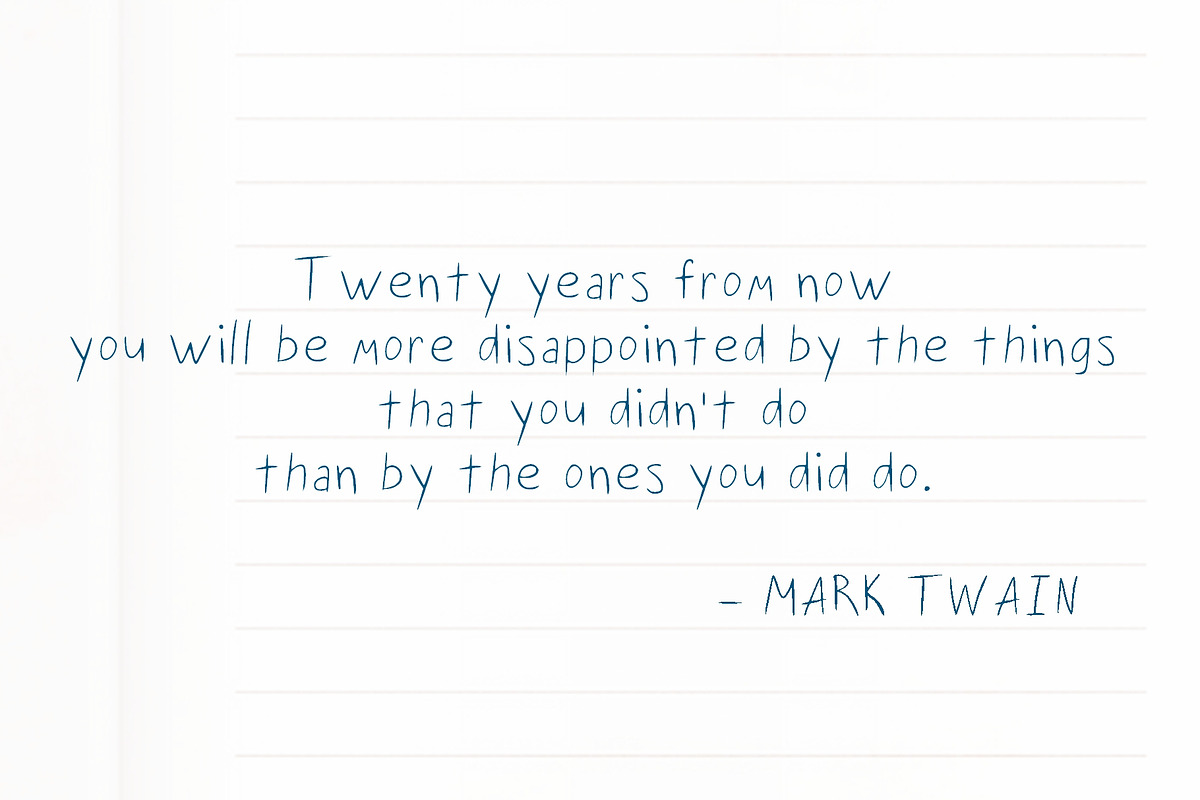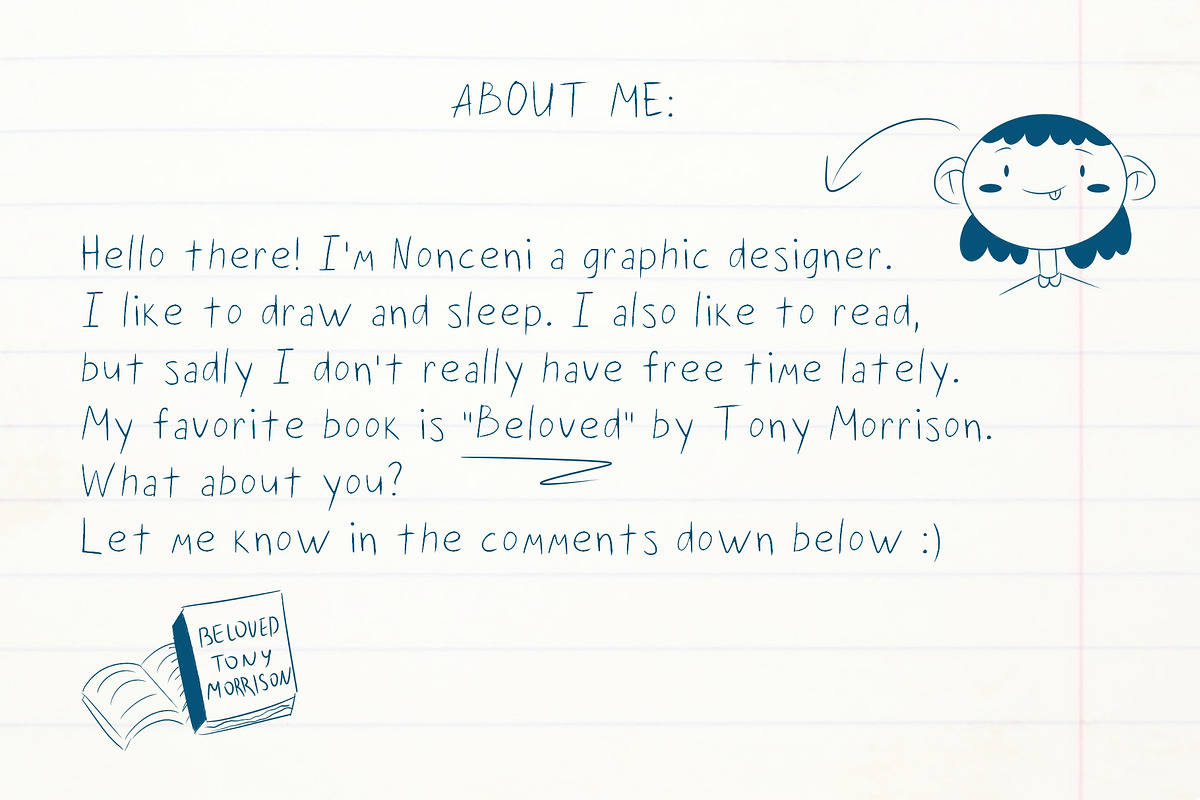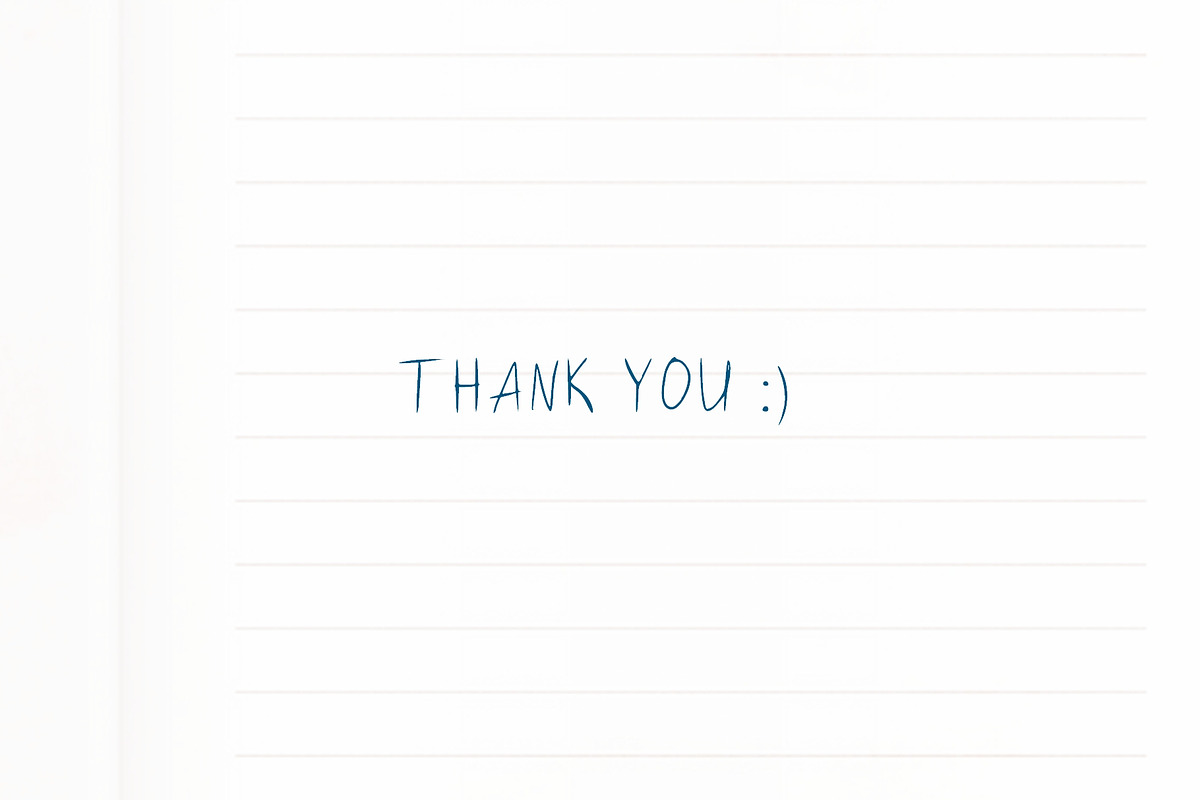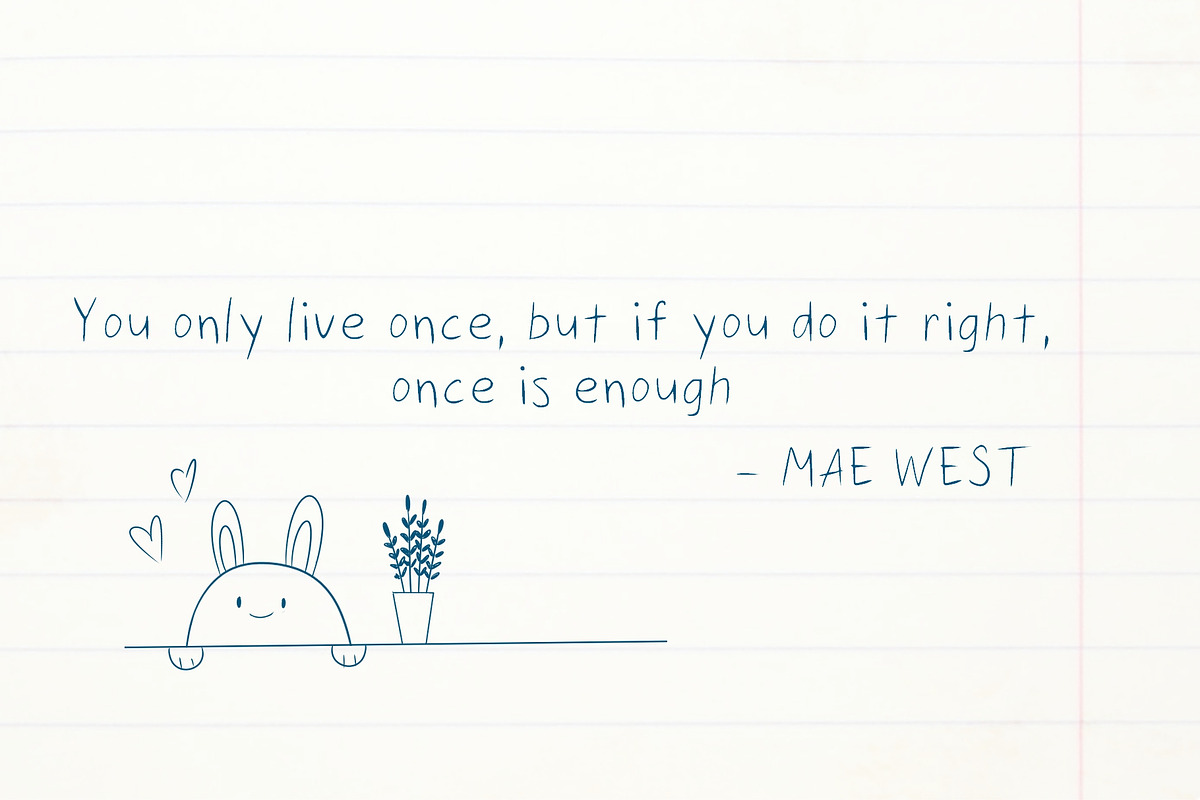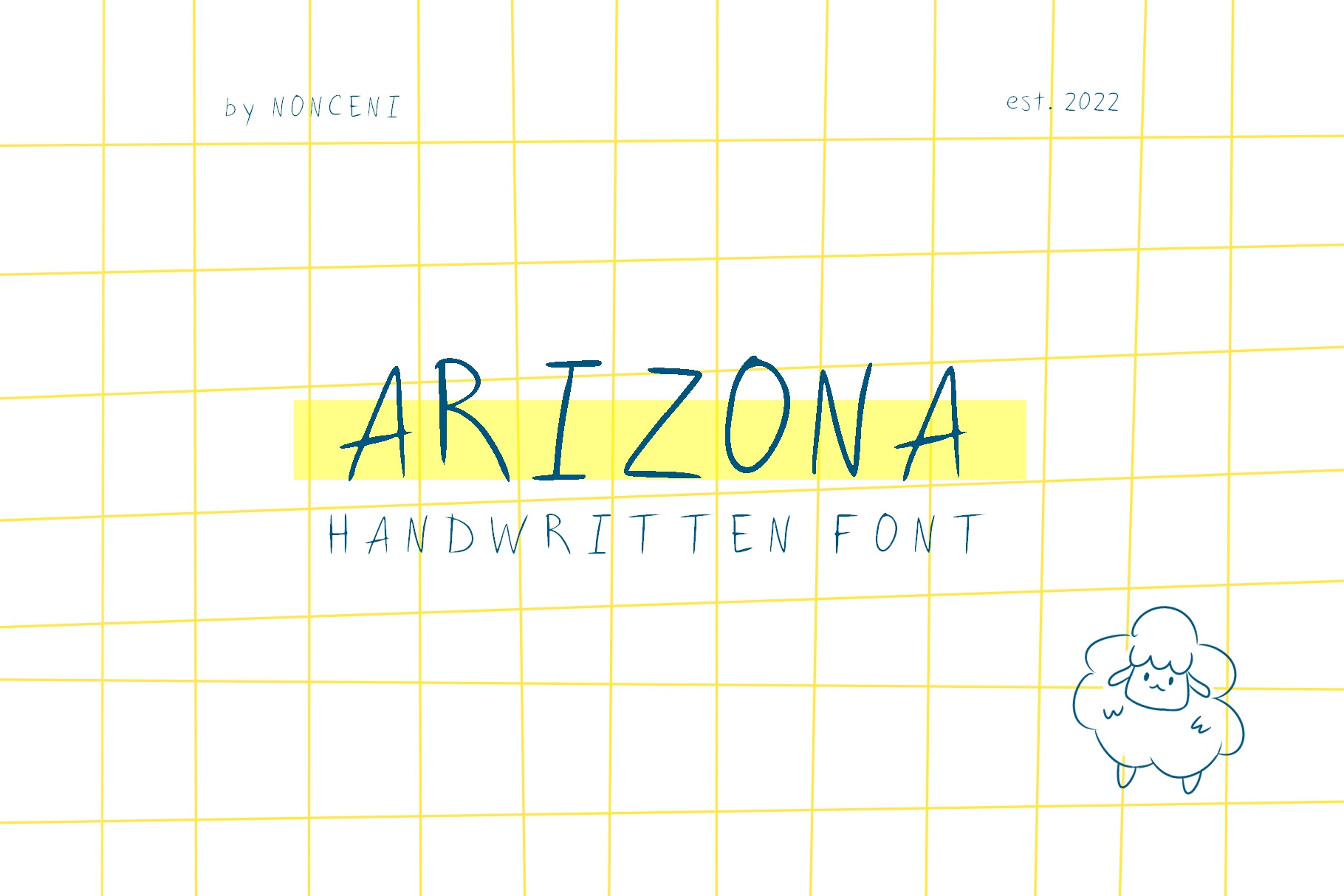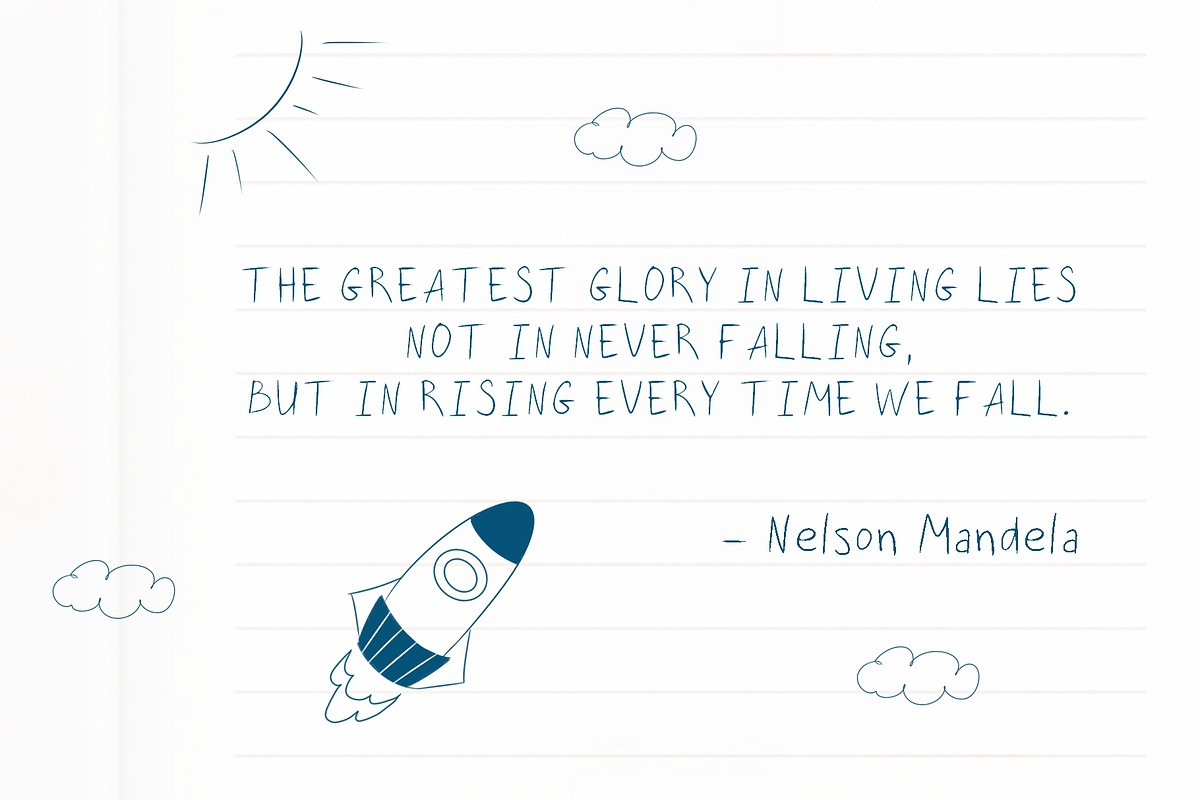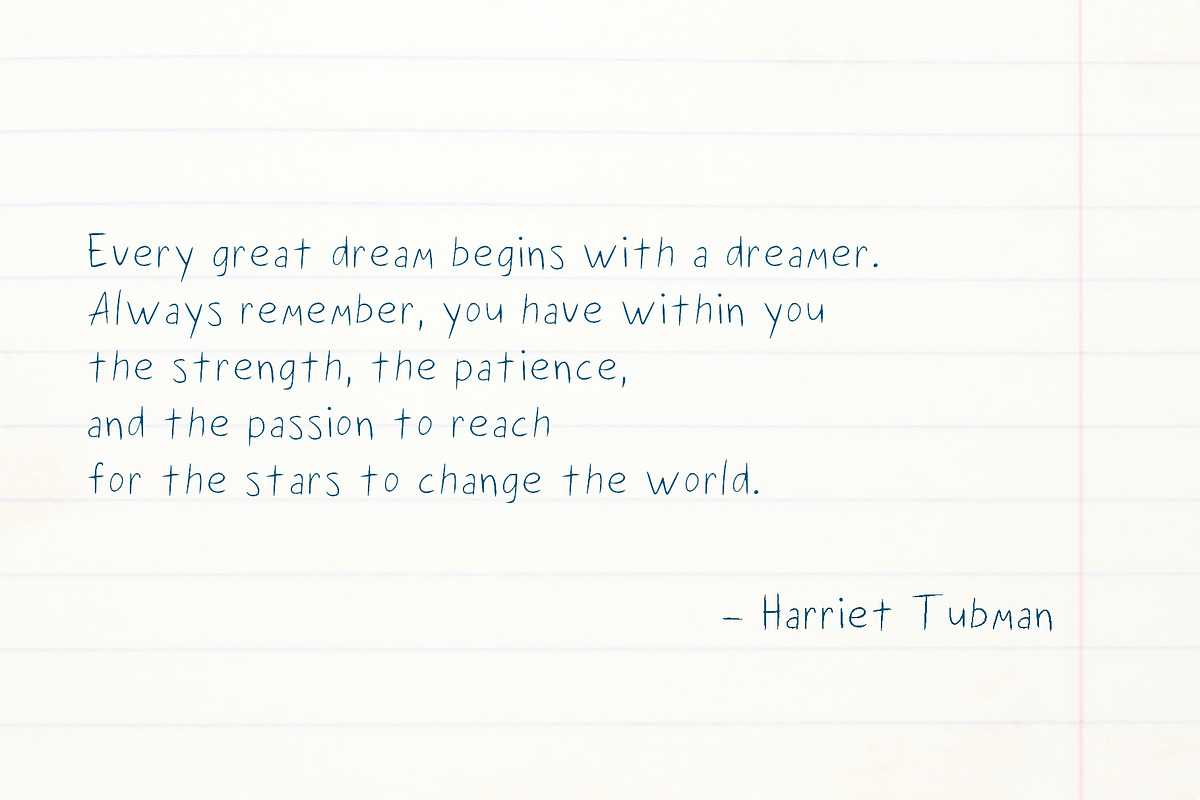
Arizona Hand-written Font
If you want to add a hand-written touch to your projects this font is perfect for you.
You can use it in poster design, book cover, your digital planner or diary, qoutes, branding and many more!